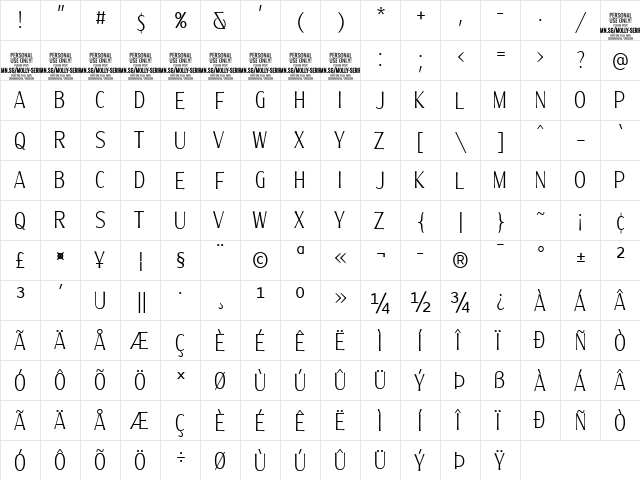
Molly Serif XC PERSONAL Thin
| Foundry | Mans Greback |
| Designer | Mans Greback |
Design Context for Molly Serif XC PERSONAL Typeface
Molly Serif XC PERSONAL carries the refined structure of traditional serif typography, with bracketed terminals and considered proportions that communicate credibility and craft. Its slender proportions lend an understated elegance to any composition.